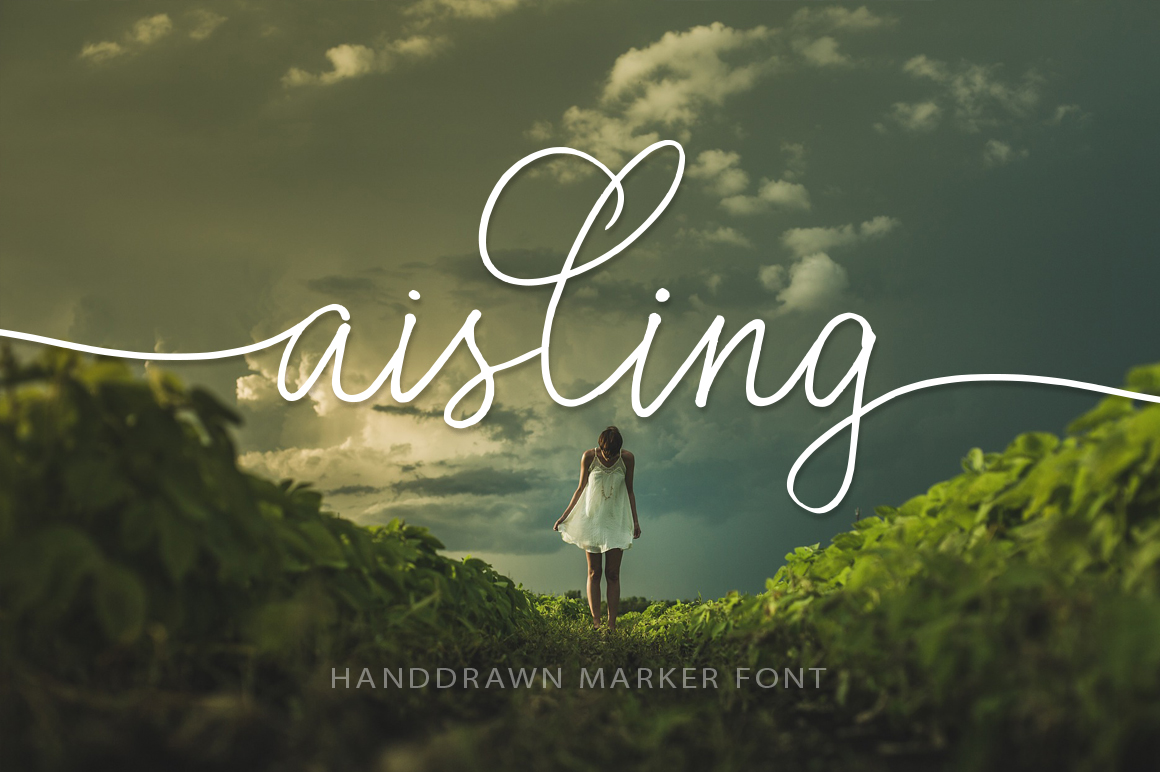
The Whimsical Charm of Aisling Font: A Designer’s Delight
I still remember the project that led me to discover the enchanting Aisling font. I was working on a branding campaign for a new Irish-themed cafe, and I was struggling to find the perfect script font that could capture the essence of Ireland’s lush landscapes and rich heritage. That’s when I stumbled upon Aisling, a beautiful script font that instantly transported me to the Emerald Isle. In this article, I’ll share my love for Aisling, its features, and how to make the most of it in your creative projects.
A Personal Review: What I Love About Aisling
Aisling has become a go-to font in my design arsenal, and here’s why:
• ✨ Romantic and Whimsical: Aisling’s elegant strokes and flowing curves evoke a sense of romance and whimsy, perfect for projects that require a touch of Irish charm.
• âś… Highly Versatile: Whether you’re designing a logo, invitation, or social media graphic, Aisling adapts seamlessly to various design contexts.
• đź’« OpenType Features: Aisling comes with a range of OpenType features, including stylistic alternates, swashes, and ligatures, which allow for endless creative possibilities.
While Aisling is an exceptional font, there are a few minor quirks to be aware of:
• 🤔 Kerning Issues: As with many script fonts, kerning can be a bit tricky, especially when using larger font sizes. Take the time to adjust the kerning to achieve the desired look.
• ⚠️ Limited Use in Body Text: Due to its decorative nature, Aisling is best suited for headlines, titles, or short paragraphs. Avoid using it for lengthy body text, as it may become difficult to read.
The Story Behind Aisling: A Designer Inspiration
Aisling was inspired by the rich cultural heritage of Ireland and the mythological figure of the aisling, a female spirit who appears in Irish folklore. The font’s creator aimed to capture the essence of Ireland’s lush landscapes, folklore, and mysticism, resulting in a font that’s both decorative and romantic.
Font Name Aisling Font
Author Red Ink
What is the best use case for Aisling font? Aisling is perfect for creative projects that require a touch of Irish charm, such as branding, invitations, social media graphics, and packaging.
Is Aisling suitable for body text? No, Aisling is best suited for headlines, titles, or short paragraphs. Its decorative nature makes it less suitable for lengthy body text.